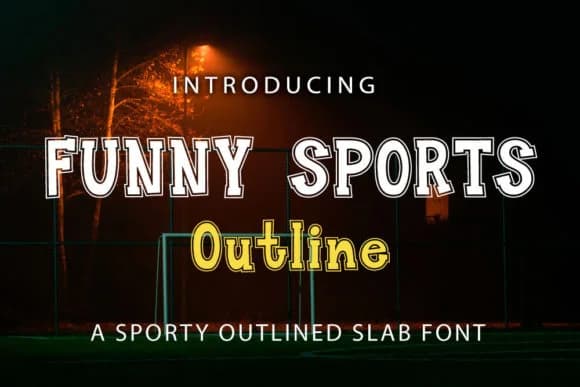
Picture a designer sketching out a fitness brand's identity, needing a typeface that radiates energy without sacrificing clarity. Enter Funny Sports, a slab serif from Crafty Files that strikes that balance between casual confidence and modern strength. This typeface thrives wherever athletic energy meets deliberate design: custom Cricut apparel labels that hold up through multiple washes, gym signage with the kind of presence that stops scrollers, sports brand packaging that commands shelf space, and fitness app headers that feel human rather than corporate. The slab serif structure gives it a sturdy, grounded foundation that reads as both approachable and powerful.
What makes it work across such different contexts is its consistency at scale. From embroidery patches to training facility walls, it maintains its clarity and character without losing personality. The casual tone keeps it from feeling stuffy, which matters when you're designing for audiences who live active lives and want brands that speak their language rather than lecture them. That's why it works as well for a yoga studio logo as it does for athletic wear branding.
- Sturdy, Confident, Custom Font
Funny Sports Font is a slab serif font that shines as a display or heading face. Pair it with a clean sans-serif or serif font for body text β the contrast creates a clear hierarchy while the two styles stay balanced and easy to read.
Funny Sports Font